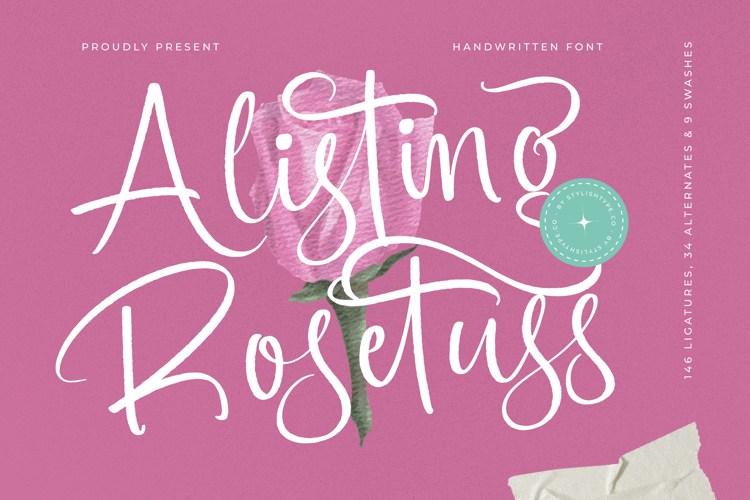
Alisting Rosetuss - Handwritten Font
Alisting Rosetuss - Handwritten Font is a breathtaking display of modern calligraphy, featuring dramatically linked characters and a genuine brush-pen texture. This high-contrast design marries thick, confident downstrokes with delicate, expressive upswings, ensuring your typography communicates unparalleled sophistication and personalized touch. It transforms ordinary text into a visual signature of elegance and heartfelt intention.